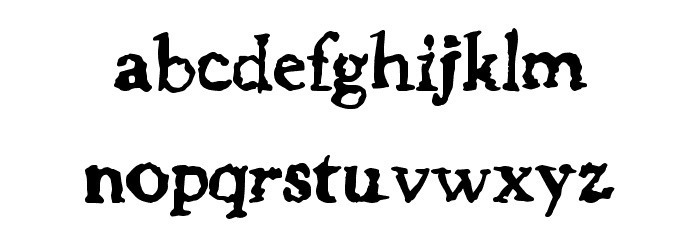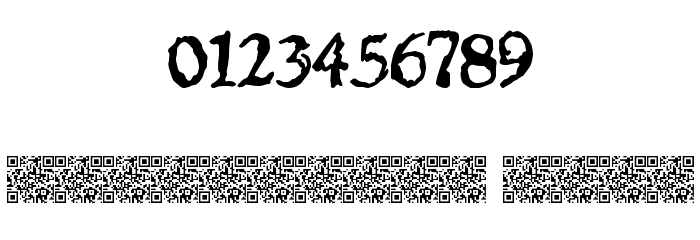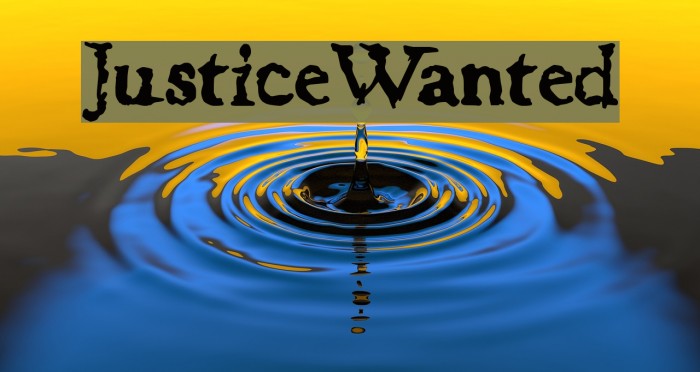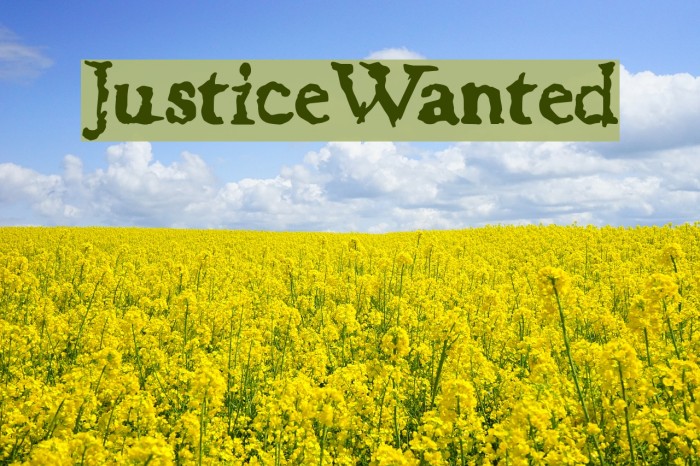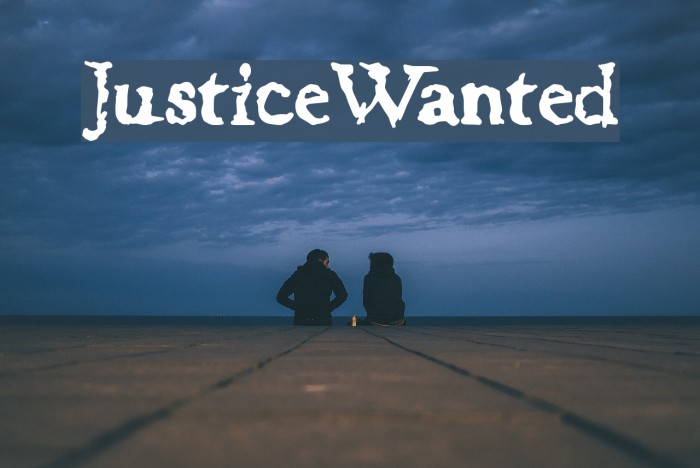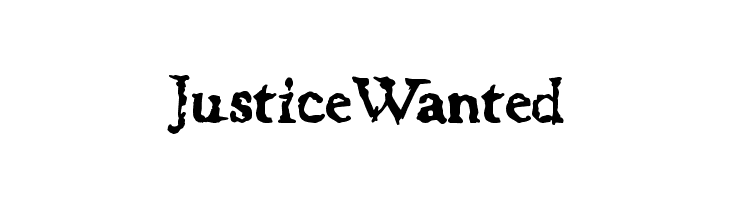
JusticeWanted Font
This font features a rugged and distressed appearance, reminiscent of vintage wanted posters or old western signage. The characters have uneven edges and a slightly eroded look, giving them a hand-crafted feel. The uppercase letters are bold and commanding, while the lowercase letters maintain the same distressed style, ensuring consistency across text. Numbers and special characters follow the same design, making this font suitable for thematic projects. Its unique style captures attention and evokes a sense of nostalgia and adventure.
A rugged, distressed font with a vintage western feel.
- Proposed Projects: Ideal for themed posters, event flyers, branding for rustic or vintage products, and creative design projects that require a bold, attention-grabbing typeface.
- Overall Style: Vintage